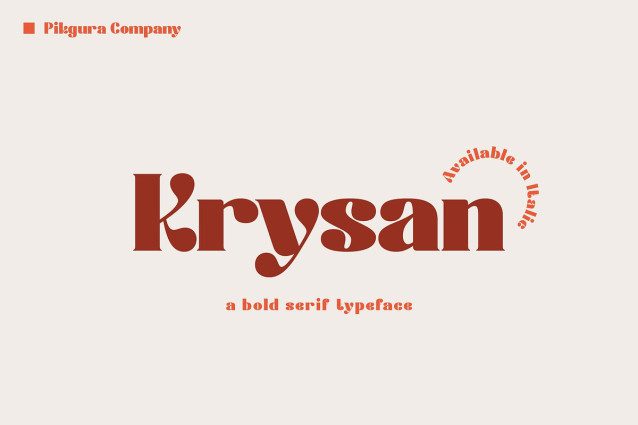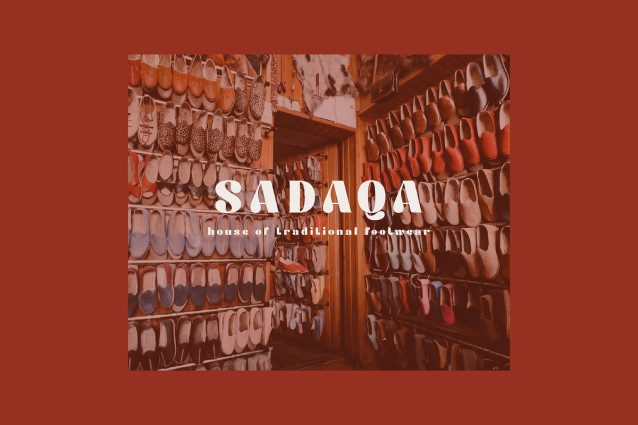
Krysan Font
Krysan Font is the really nice font for those who want to make a statement being too flashy. Its clean lines, bold and retro aesthetic make it a great choice for logos, headlines, and body text alike. With its features, you can easily create a cohesive look for your brand or project. Plus, its simplicity makes it easy to read and comprehend, so you can be sure your message is getting across loud and clear.